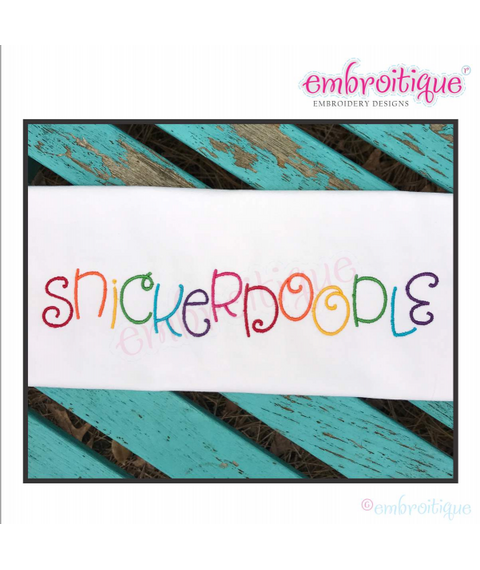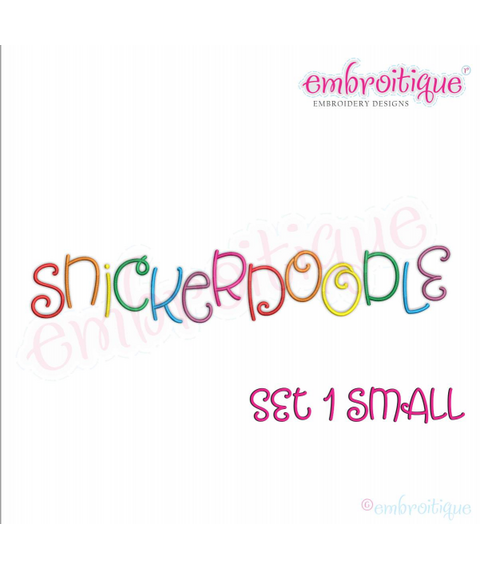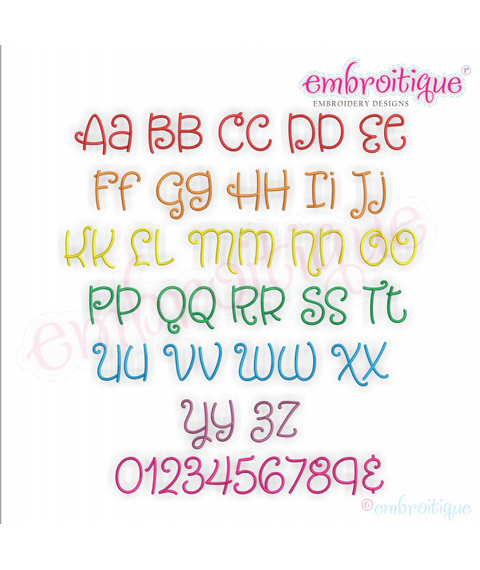
Snickerdoodle Adorable Cute and Curly SMALL SET Embroitique Exclusive machine Embroidery Monogram Font - 1", 1.5", 2", 2.5" 3"
This is an ABSOLUTLEY adorable set that is perfect for boys and girls of all ages. Uppper and lowercase letters are the same height, so have fun playing around with a mix of upper and lowercase letters to create adorable names and words!